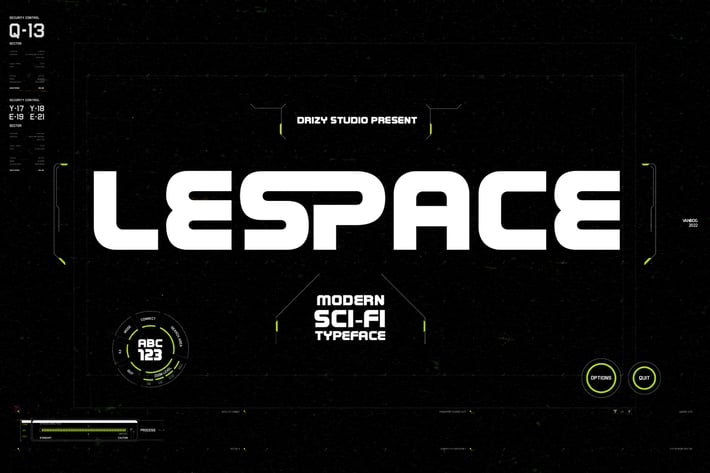
Lespace - Modern Sci-Fi Font
Lespace is a Modern Sci-Fi Font from Drizy studio. Offering all the basic styles you will need especially sci-fi theme project.
Lespace Features:
All Caps
Multilinguals
Alternates
Ligatures